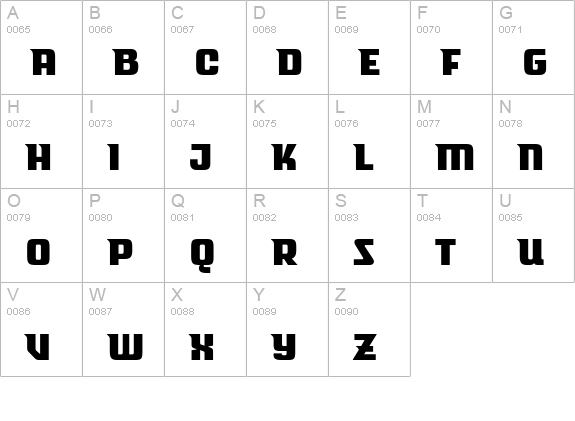
Spacelord One font is a dynamic and futuristic typeface that captures the essence of outer space exploration and adventure. Its sleek and bold design makes it perfect for projects that require a modern and edgy look. The sharp angles and unique styling of Spacelord One font add a touch of sci-fi flair to any design, whether it's for a poster, logo, or website. What makes Spacelord One font even more appealing is that it is completely free to download at FontsMarket.com. This means that you can easily access this eye-catching font without any cost, making it a valuable asset for any designer or creative professional. With its versatility and striking appearance, Spacelord One font is sure to make a bold statement in your next project.